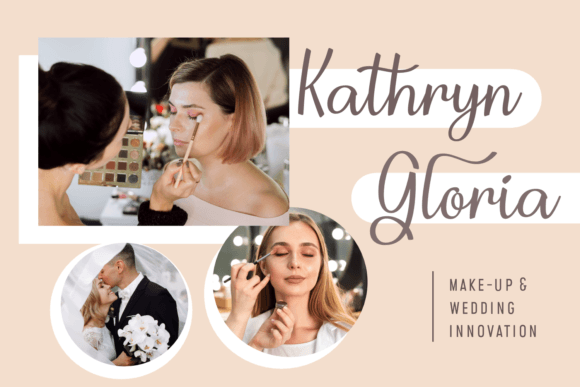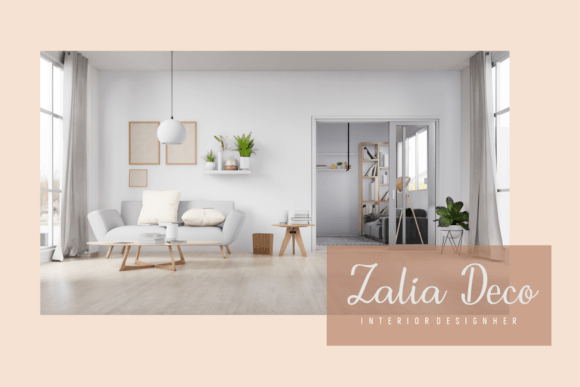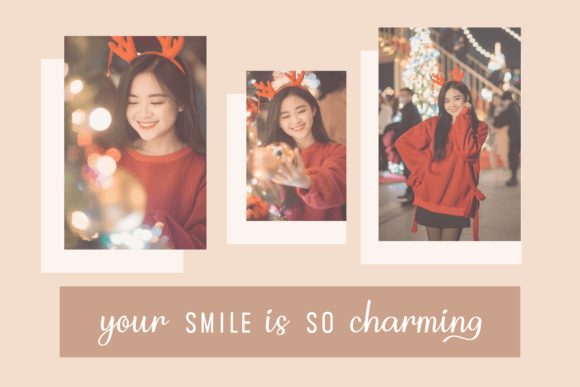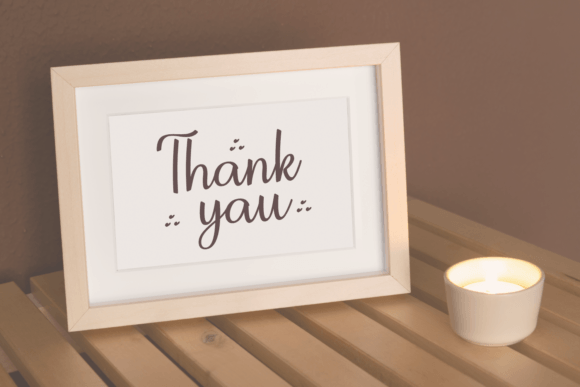
Gatiya Font
About Gatiya Font
“Gatiya” is a delightful and charming script font that exudes a sense of cuteness and elegance. With its gracefully designed characters and a beautiful rhythmic flow, this typeface is a versatile choice that will complement a wide range of your design projects. It serves as the perfect option whenever you seek to infuse your creations with a stylish and calligraphic touch.
One of the most distinctive features of “Gatiya” is its captivating rhythm and fluidity. The characters flow effortlessly, creating a harmonious and visually pleasing composition. This fluidity adds a sense of grace and sophistication to your designs, making them more visually appealing and engaging.
The font’s charming and cute aesthetic is well-suited for various design ideas. It is perfect for projects that require a touch of playfulness and elegance. Whether you’re designing invitations, crafting greeting cards, creating branding materials, or simply adding decorative elements to your artwork, “Gatiya” brings a sense of style and character to your work.
Whether your design projects are intended for digital or print purposes, “Gatiya” adapts effortlessly to both realms. Its elegant and calligraphic style ensures that your designs maintain a timeless and sophisticated appeal, making it a valuable asset for designers looking to enhance their creative projects.
In summary, “Gatiya” is a charming and versatile script font that seamlessly combines cuteness, elegance, and style. Its elegant characters and beautiful rhythm make it a go-to choice for designers seeking to add a touch of calligraphic sophistication to their creations. Embrace the charm and versatility of “Gatiya” in your next project, and discover how it can elevate your designs with its captivating aesthetic and practical usability.